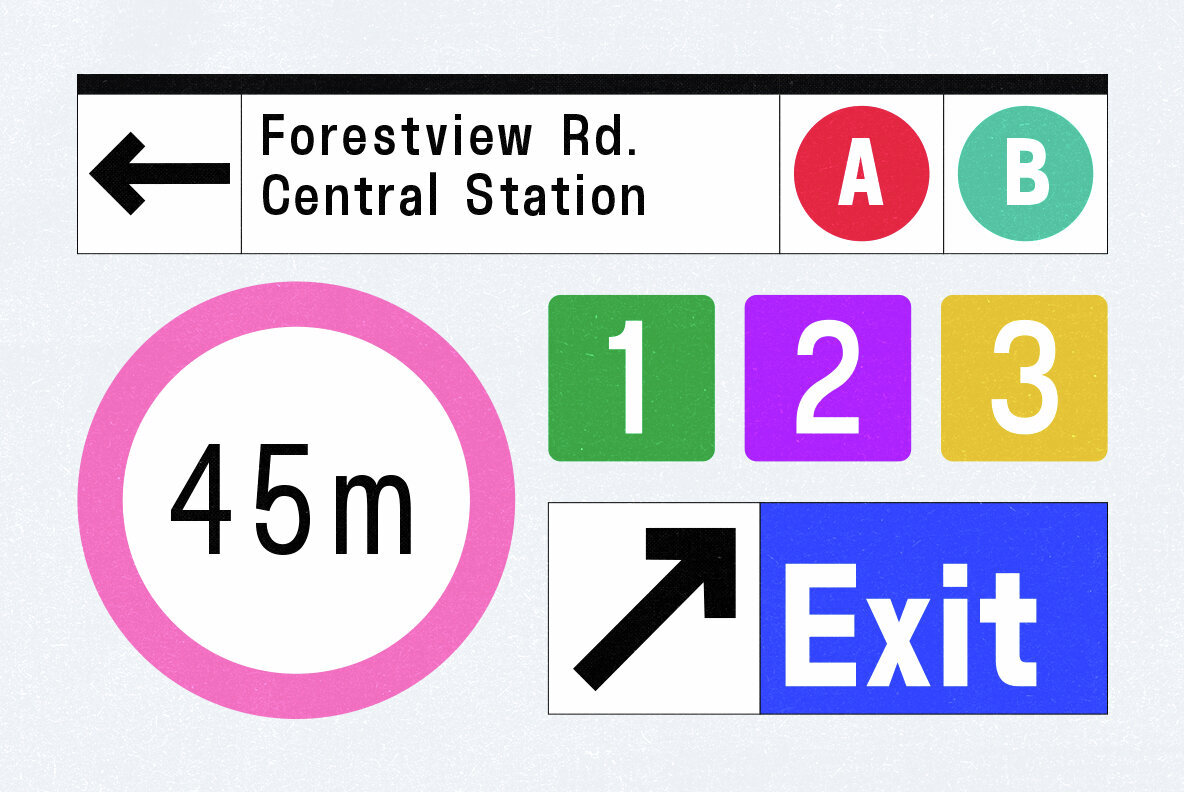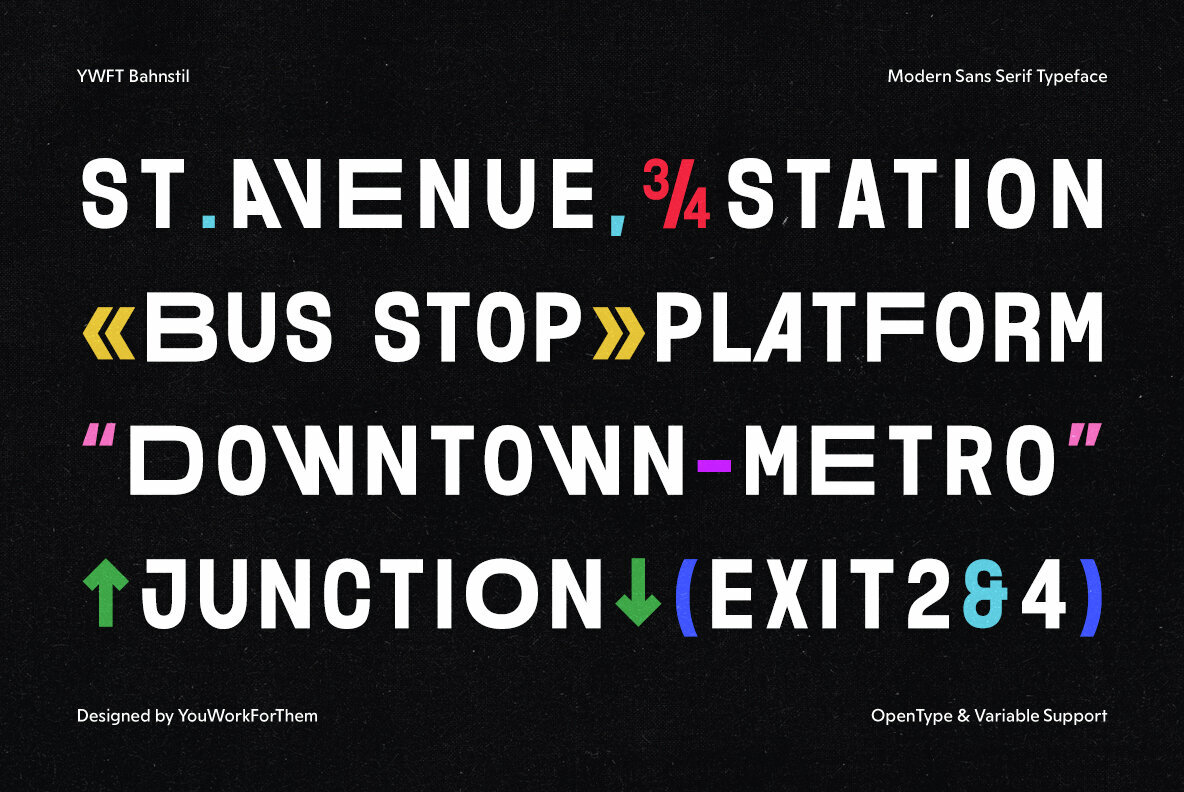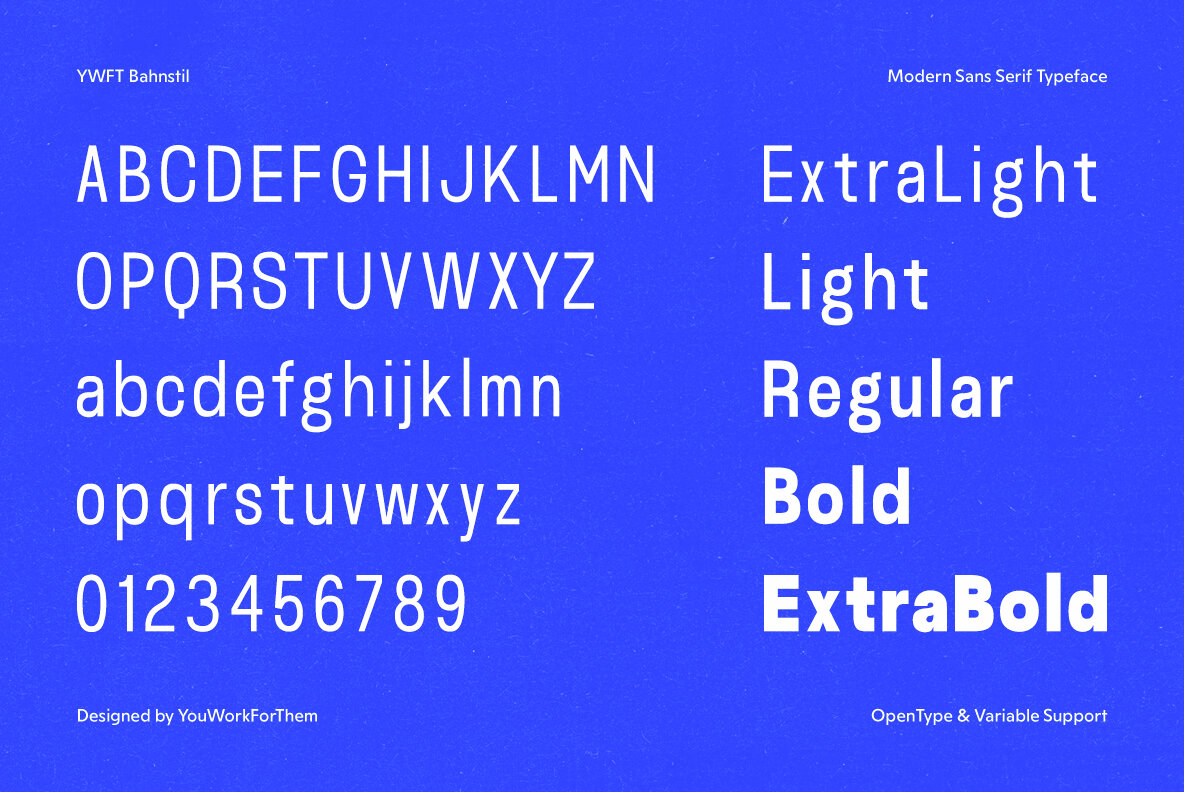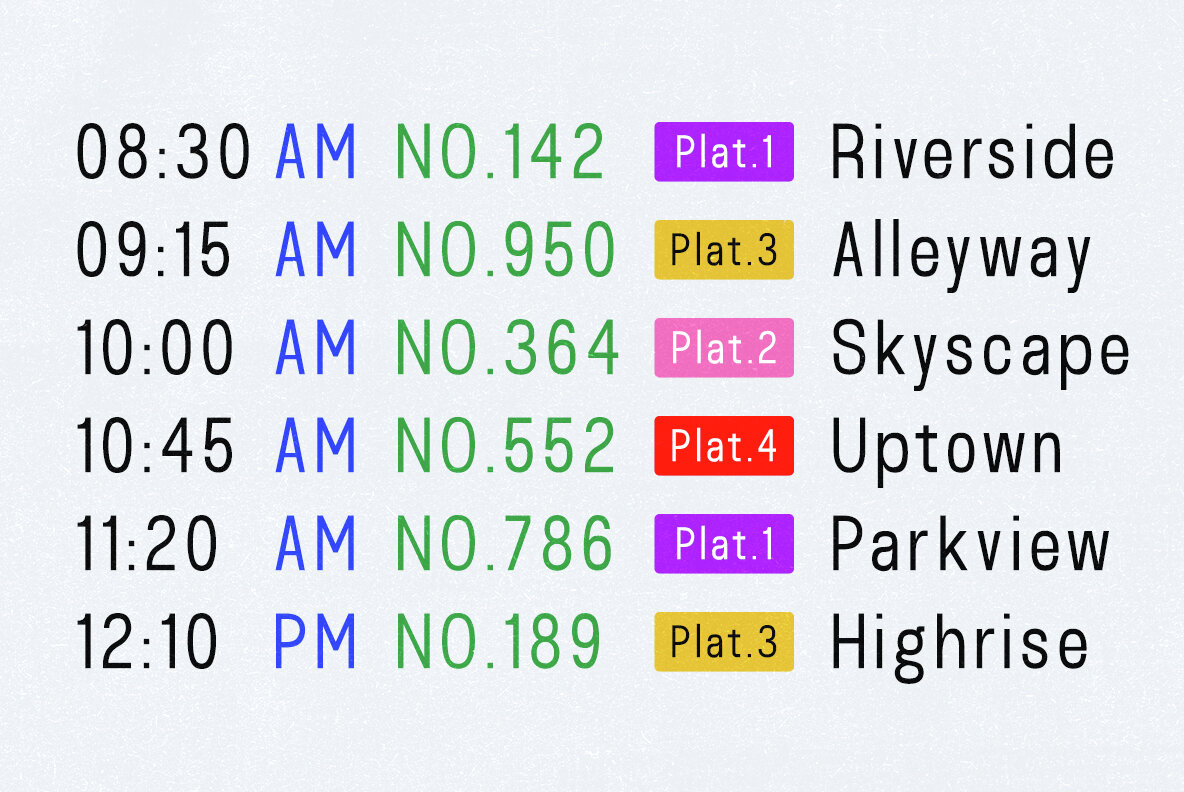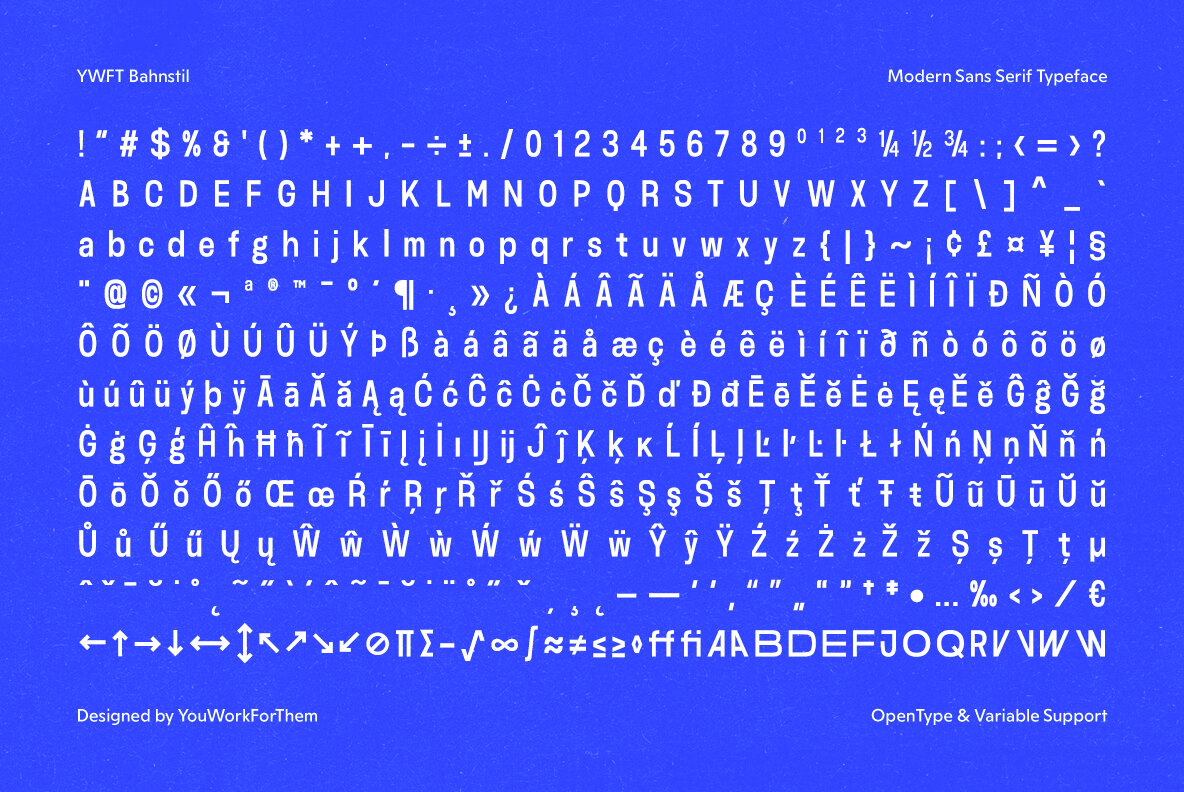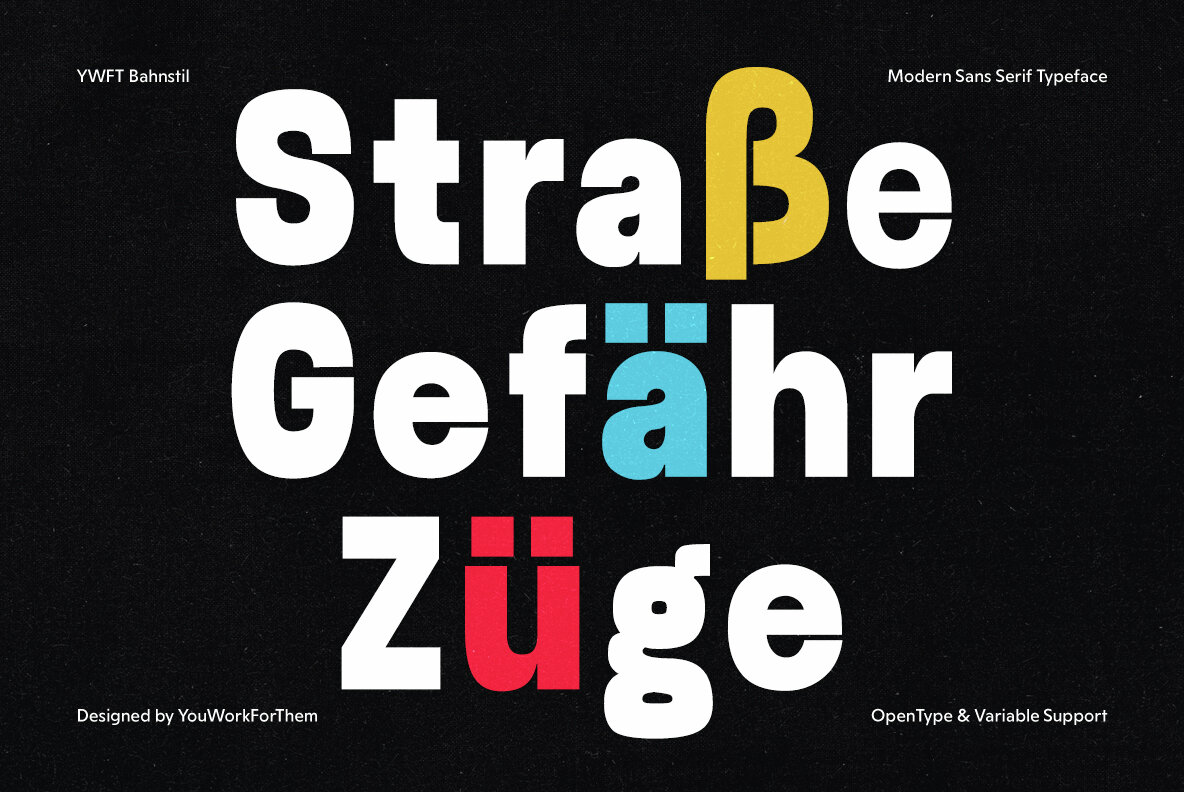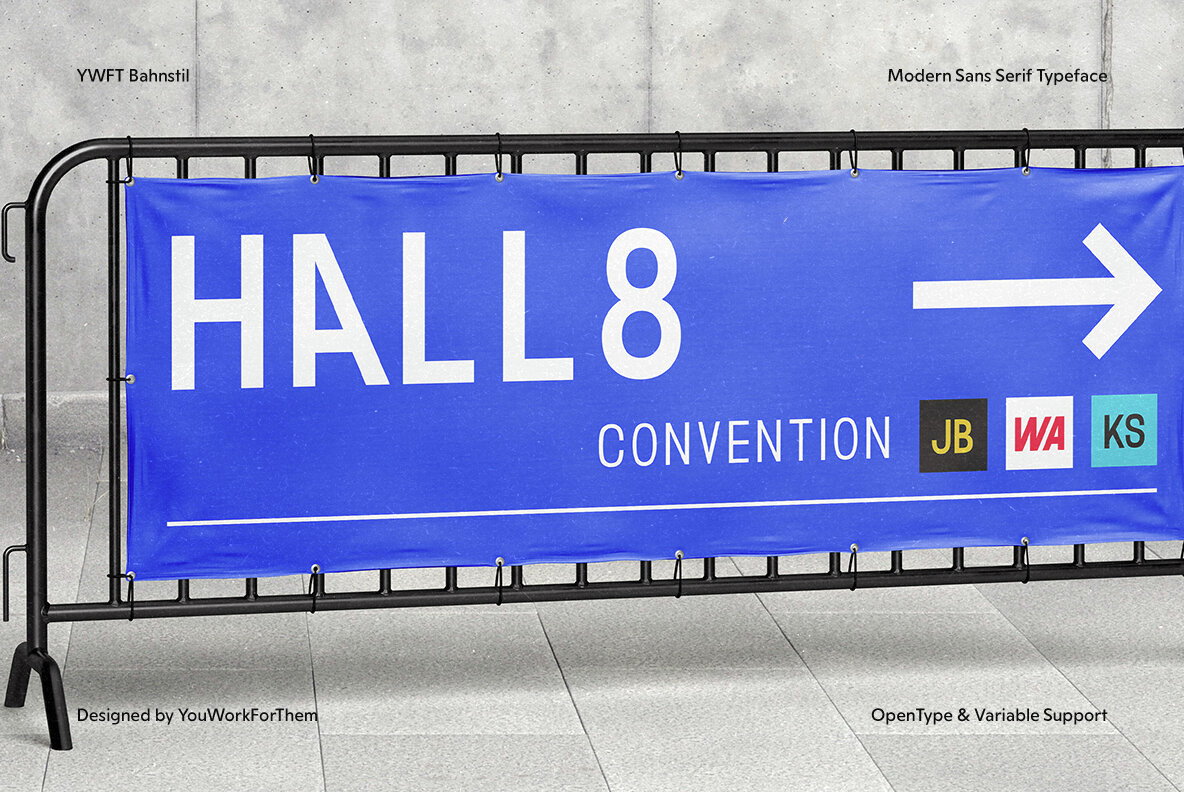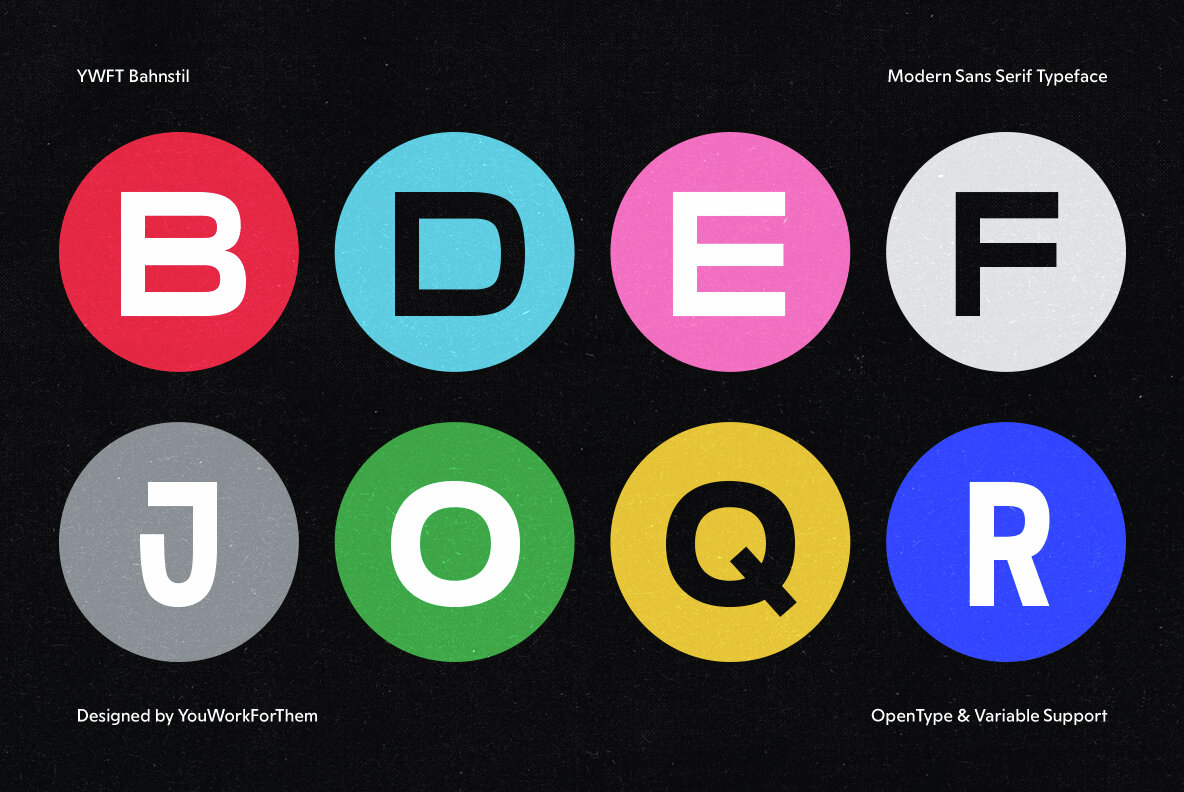
YWFT Bahnstil Font
Discover the seamless blend of historical precision and contemporary flair with YWFT Bahnstil. Drawing inspiration from the mid-20th century DIN types, such as DIN 1451 Engschrift, DIN Breitschrift, and DIN Mittelschrift, this typeface reimagines the essence of German industrial fonts through a modern lens. YWF Bahnstil embodies the fusion of mechanical rigidity with subtle humanistic touches. Its almost monospaced appearance is softened by unique letters and organic curves, making it ideal for today’s digital landscape where authenticity resonates. This font not only adheres to the mechanical spirit of classic DIN but also celebrates the imperfections that bring designs closer to the human experience. Whether you're crafting user interfaces, digital advertisements, or corporate identities, YWFT Bahnstil delivers with its versatility. The font’s robust feature set and aesthetic flexibility make it a go-to choice for industries looking to merge classic sensibilities with modern dynamics. YWFT Bahnstil comes with straightforward personal and commercial licensing options. It’s available exclusively at YouWorkForThem, ensuring that you get authentic and original designs at competitive rates. Boost your design toolkit with YWFT Bahnstil, where the spirit of German engineering meets the ease of modern typography. Experience a font designed not just to be seen, but to be felt, resonating well with the natural and organic trends dominating social media landscapes today. Additional products used for slideshow images:Introducing YWFT Bahnstil: A Humanistic Twist on DIN Font Classics
Exquisite Typeface Features:
Designed for Modern Necessities
Ideal for Diverse Graphic Design Applications